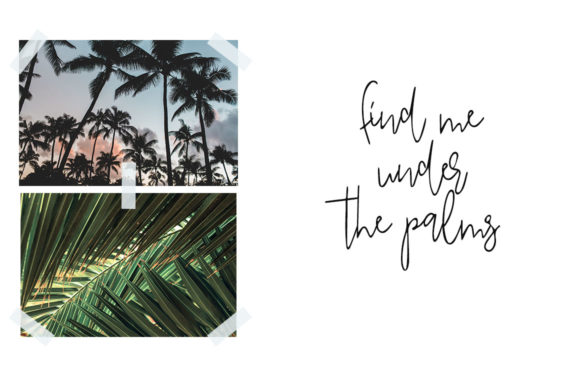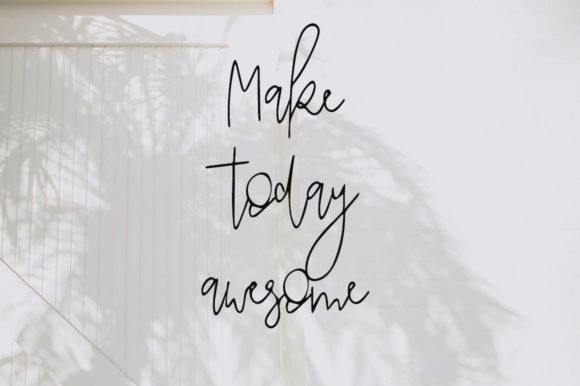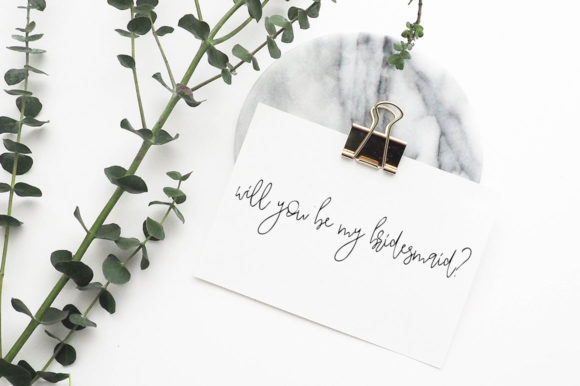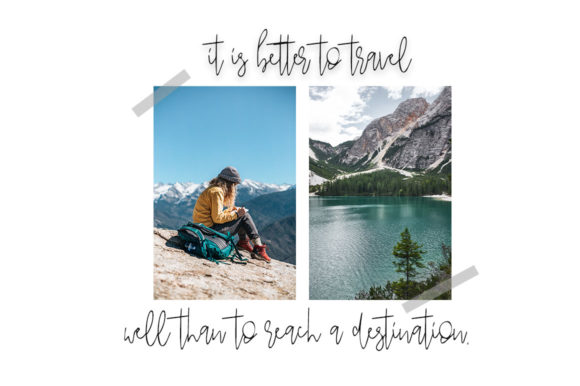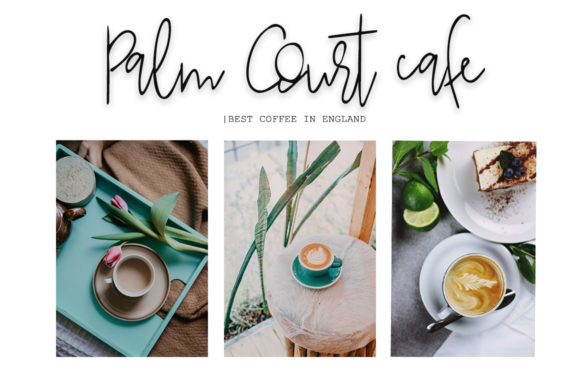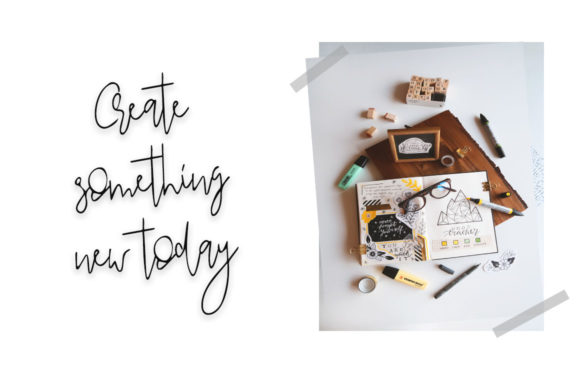
Kolaer Ink Font
About Kolaer Ink Font
This handwritten script has been attentively written with gentle curves to produce a font that’s completely distinctive and original.
It’s perfect for adding an elegant and unique touch to your lettering projects and branding.